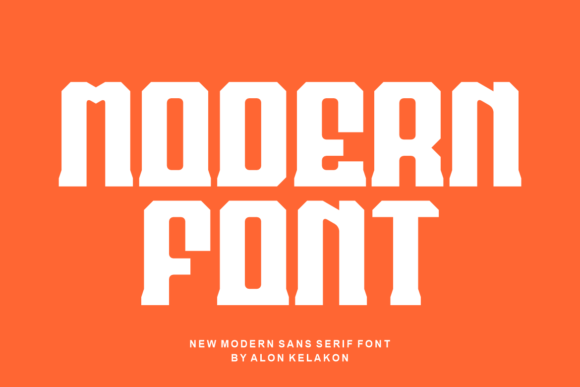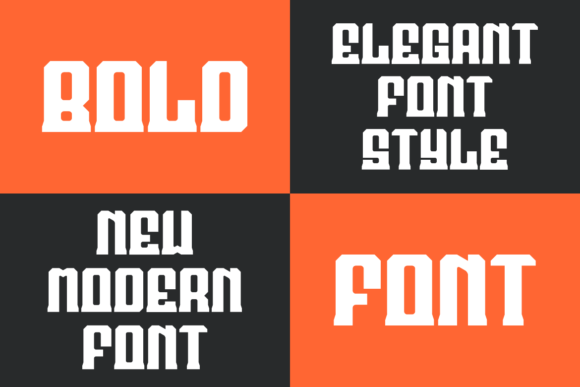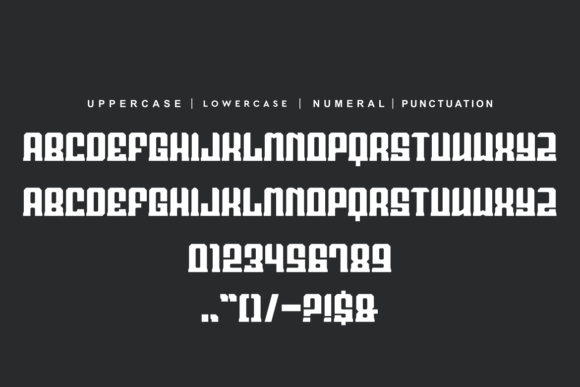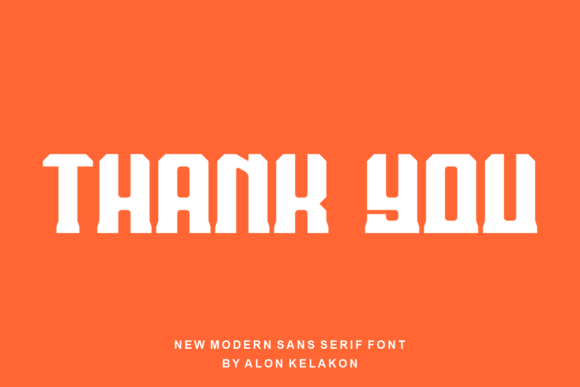
Introducing Geprank Font: The Ultimate Choice for Bold and Daring Typography
Are you a designer or crafter looking for a font that can add a touch of modernity and coolness to your projects? Look no further than Geprank Font! This stunning display font is perfect for product packaging, branding, and any other project that requires bold and daring typography. In this article, we’ll dive into the features and benefits of Geprank Font, and explore how it can elevate your designs to the next level.
What is Geprank Font?
Geprank Font is a modern and edgy display font that is designed to make a statement. Its unique and bold letterforms are perfect for creating eye-catching headlines, titles, and slogans that demand attention. Whether you’re working on a product packaging design, a branding project, or a marketing campaign, Geprank Font is the perfect choice for adding a touch of sophistication and style.
Key Features of Geprank Font
- Bold and Daring: Geprank Font features bold and daring letterforms that are perfect for making a statement.
- Modern and Edgy: This font has a modern and edgy feel that is perfect for designs that require a touch of sophistication and style.
- Highly Versatile: Geprank Font can be used for a wide range of projects, from product packaging to branding and marketing campaigns.
- Easily Readable: Despite its bold and daring design, Geprank Font is easily readable, making it perfect for use in headlines, titles, and slogans.
Benefits of Using Geprank Font
So why choose Geprank Font for your next project? Here are just a few benefits of using this amazing display font:
- Adds Visual Impact: Geprank Font adds a touch of visual impact to your designs, making them stand out from the crowd.
- Enhances Branding: This font can help to enhance your branding by adding a touch of sophistication and style to your designs.
- Increases Engagement: The bold and daring design of Geprank Font can help to increase engagement with your audience, making them more likely to take notice of your message.
- Perfect for Product Packaging: Geprank Font is perfect for product packaging designs, adding a touch of modernity and coolness to your products.
In conclusion, Geprank Font is a cool and modern display font that is perfect for designers and crafters looking to add a touch of bold and daring typography to their projects. With its unique and edgy design, highly versatile features, and easily readable letterforms, Geprank Font is the perfect choice for product packaging, branding, and marketing campaigns. So why wait? Download Geprank Font today and take your designs to the next level!